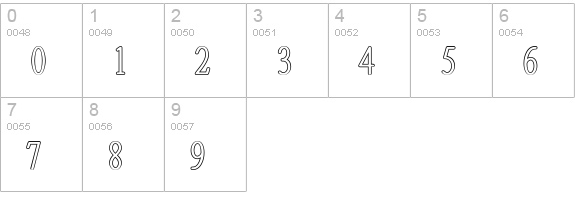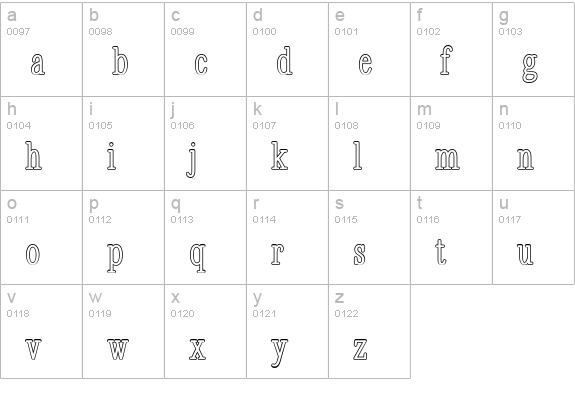
Revelation BTN Cond Out is a distinctive, condensed-width variant in the Revelation typeface family \xE2\x80\x94 well suited to design and typography projects.
Revelation BTN Cond Out font is a remarkable typeface that exudes elegance and sophistication. Its clean lines and sharp edges make it perfect for modern designs, while its condensed form adds a touch of uniqueness and versatility. This font is a true testament to the power of typography, as it effortlessly captures attention and conveys a strong message. One of the greatest aspects of Revelation BTN Cond Out font is that it is freely available to download at FontsMarket.com. This means that designers, creatives, and anyone in need of a high-quality font can easily access this gem without any cost. Such generosity allows for a wider range of individuals to experience the beauty and functionality of this font, making it a valuable asset in any designer's toolkit. Whether you're working on a sleek logo design, a captivating poster, or a professional website, Revelation BTN Cond Out font will surely elevate your project to new heights. Its perfectly balanced letterforms and precise spacing create a harmonious visual experience, ensuring that your message is conveyed with utmost clarity and impact. With its extensive character set and various weights, Revelation BTN Cond Out font offers tremendous flexibility in design. It effortlessly adapts to different sizes, making it suitable for both headline and body text. Its timeless appeal and modern aesthetic make it an excellent choice for a wide range of projects, from branding materials to editorial layouts. In conclusion, Revelation BTN Cond Out font is a free, downloadable typeface that combines elegance, versatility, and functionality. Its availability at FontsMarket.com ensures that designers can easily access this exceptional font without any financial burden. With its captivating design and wide range of applications, Revelation BTN Cond Out font is a must-have for anyone seeking to make a lasting impression.